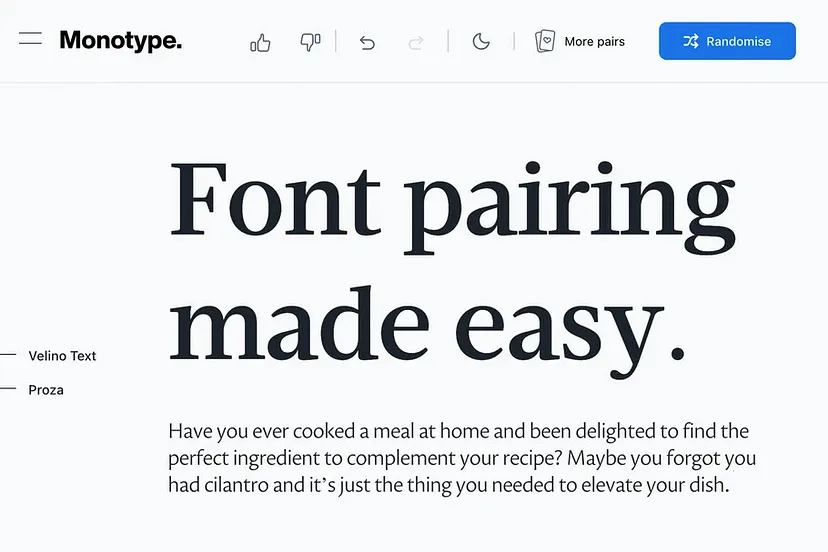
Putting AI to work: The magic of typeface pairing.
The perfect typeface pairing might only exist for your brand, with your message, in your typeface choices.
Monotype's font pairing tool is shown, displaying a serif and sans serif font paired together.
Font pairing is a subjective practice with infinite possibilities. But what if you had an AI tool that considered your expertise and emotions as your personal assistant?
Have you ever cooked a meal at home and been delighted to find the perfect ingredient to complement your recipe?
Maybe you forgot you had cilantro, crushed peanuts, or lemon juice, and it’s just the thing you needed to elevate your dish. Or perhaps, you were getting dressed for the day. You selected your favorite pair of denim but weren’t sure which shirt would match. You considered your mood and then the destination. You finally decided on a warm, seasonal sweater. In either scenario, you created a fresh and distinctive flavor, an enhanced experience. And as a result, a sensation of ease and satisfaction washed over you.
This is what finding the perfect font pairing feels like.
The Monotype AI pairing engine.
These are the daily decisions you make about harmony and contrast.
These pairings are thoughtful, carefully curated designs.
Like pairing anything, it’s a subjective practice with infinite possibilities. There are many good choices, some that are bad, and a few that are exceptional.
Now imagine if you had an AI tool that considered your expertise and emotions as your personal assistant. It could offer exciting, delightful ideas, and increase the speed and quality of your creative decisions. These suggestions could even act as a soundboard or a source of inspiration. We are using AI to increase the depth and breadth of our font pairing suggestions.
The power behind font pairing.
Let’s say you’re designing a magazine. It might be desirable to have a very flexible typographic palette, with both a sans and serif typeface able to handle body copy duties. One article could have the sans as the body, and the next article could use the serif for the body. An effective pairing like that could offer variety among similarity.
Pairing typefaces expands your typographic palette by offering more hierarchy choices, more texture, and weight options, as well as an opportunity to fine-tune tone of voice. For example, a workhorse of a sans family could be well suited to handle most of the type duties of a brand. But it could look more friendly if you paired it with a rounded sans style, perhaps more casual and personal if paired with a handwriting typeface, or it could even be dressed up into a more sophisticated and serious tone by pairing it with a serif typeface. By finding a unique typeface pairing, you can take your first typeface choice and nudge it into a rarer look and feel.
Some brands and projects can get away with just a single typeface family. But a second typeface can add lots of flexibility and complexity to its messaging. It can also be a way of extending or refreshing an existing brand. Maybe an established brand is growing by adding another product or service that requires a different tone but could benefit from having visual similarities from the parent brand—boom, typeface pairing to the rescue.
Font pairings are extremely valuable; they provide variety, functionality, and tone of voice, sparking a new brand or breathing life into an old one.
How fonts are paired: from harmony to contrast.
A large spectrum of typeface pairings is available, ranging from harmonious to contrasting. Harmonious means things look similar, blend well or are related by formal qualities. For example, a blue shirt with blue denim, with a small amount of color difference, would have harmony. An orange shirt with blue denim would have much more contrast. Contrast is about emphasizing the differences.
Often, pairing a sans-serif with another sans-serif might result in insufficient distinction—too much harmony, not enough contrast. Instead, for a more sophisticated typographic palette, many choose a sans with a serif. For example, a blue shirt with blue denim might appear very dull, offering up too much harmony, but an orange shirt might have too much contrast. That’s when a compromise to use an analogous color would work best, such as green or violet which are neighbors to blue on the color wheel. A little bit of contrast, but mostly in harmony. The spectrum of typeface pairing works much like a color wheel in this way.
Typeface pairs can be very harmonious, especially styles from the same family, like using Helvetica Now Regular and Bold for example. They pair well because they look very similar, with similar construction and proportions, while allowing some contrast that is needed for hierarchy in any layout. Simply put, a typeface family is designed to pair with itself; that’s why we design so many weights in a typeface. A “super family” like FF DIN or Kairos or Macklin for example, have many related styles that are easy to pair like a sans, serif, or stencil. These off-the-shelf pairings are easy to choose because the family name tells you they belong together.
Contrasting pairs can be almost anything because the focus is on how the type styles differ. Some typeface families have been designed like kits, where the family name includes both a sans and script, for instance, which creates a template for the designer to use, like Laura Worthington’s Charcuterie or Ed’s Market families. These are examples of pairs with higher amounts of contrast—they look very different from each other but create a certain mood when used together.
This tool provides inspiration and insight into the art of font pairing while aiding the speed and quality of your font choices. It’s not by chance. It’s work. It’s type, technology, and expertise at the push of a button.